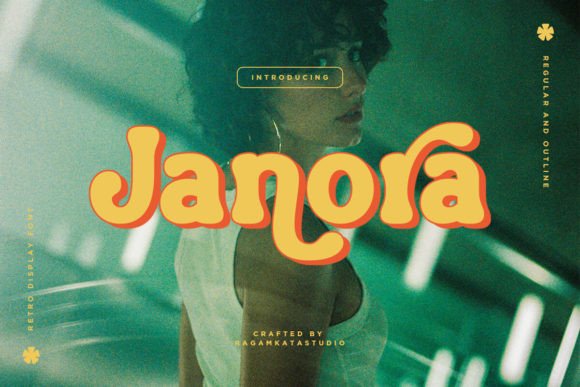
Welcome to the world of Janora Font, the perfect serif font for all your wedding invitation needs. Created by the talented team at RagamKata Studio, Janora Font is a retro display serif font that will transport you back in time with its classic charm and bold character.
Drawing inspiration from the timeless retro styles, Janora Font effortlessly combines elegance and nostalgia, making it the ideal choice for any wedding invitation. Its meticulously crafted letters showcase the utmost attention to detail and proportion, creating a visually appealing and unique appearance that is sure to captivate your audience.
Janora Font is more than just a font; it is a journey to the past, where every stroke and curve tells a story. The carefully selected serifs and vintage-inspired design elements give this font a sense of authenticity and timelessness, making it the perfect companion for your special day.
With Janora Font, you can effortlessly set the tone for your wedding with its captivating and emotional presence. Its versatility allows it to be used in various wedding themes, whether you're going for a vintage, rustic, or modern aesthetic. This font will elevate your invitations, making them stand out and leave a lasting impression on your guests.
Imagine the excitement on your loved ones' faces when they receive your beautifully designed wedding invitations, adorned with the exquisite Janora Font. It will instantly transport them to a bygone era and evoke a sense of warmth and nostalgia. Your invitations will not only convey the necessary details but also convey the emotions and love that you and your partner share.